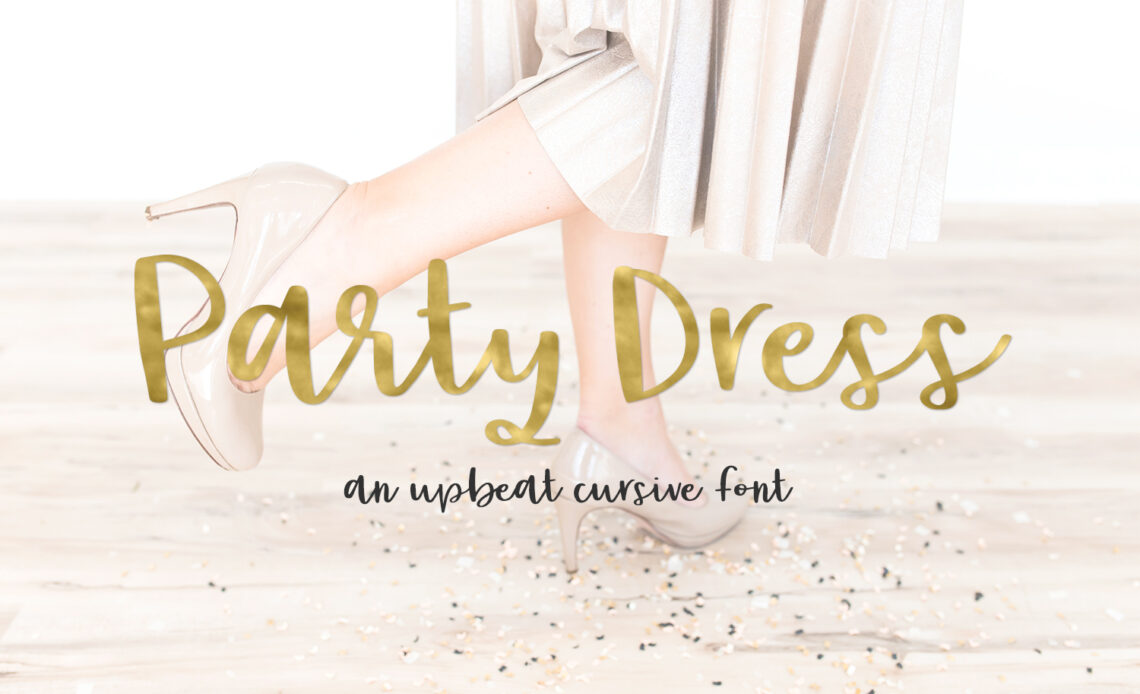
Party Dress Font
Introducing Party Dress Font - A Jousting Celebration of Joy!
In the realm of typography, where letters dance and stories unfold, Party Dress Font emerges as a radiant masterpiece, crafted by the ingenious BeckMcCormick. This script font is not merely a collection of characters; it's a vibrant symphony of celebration, a visual fiesta that captures the essence of joyous occasions.
Party Dress Font is the perfect companion for your creative endeavors, whether you're designing invitations for a much-anticipated birthday bash, crafting heartfelt messages for a cherished anniversary, or creating playful posters for an upcoming carnival. Its clean and effortlessly legible lettering ensures that your words shine with clarity, while its wide range of styles allows you to weave a tapestry of visual delight.
Picture this: a birthday invitation adorned with Party Dress Font, its letters dancing like confetti against a backdrop of vibrant colors. As your friends and family read the invitation, they can't help but feel the infectious joy radiating from every word. Or imagine a wedding invitation, where Party Dress Font intertwines with delicate floral motifs, conveying the heartfelt promise of a lifetime of happiness.
Party Dress Font is not just a font; it's a gateway to a world of boundless creativity, where your imagination runs wild and your designs come alive with infectious enthusiasm. Embrace the joyous spirit of Party Dress Font and let your creations radiate with an aura of celebration!